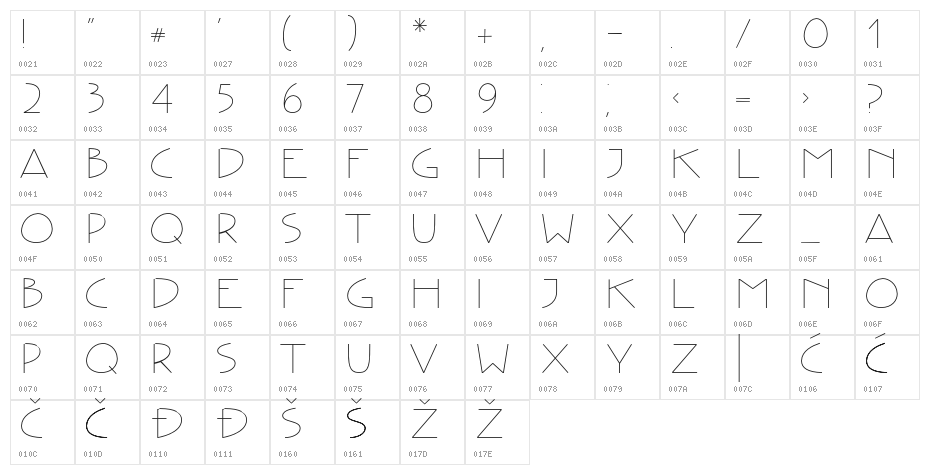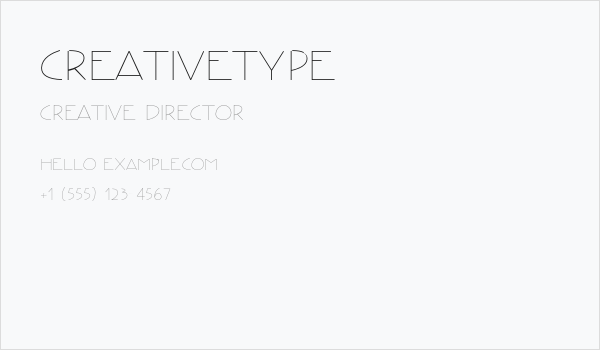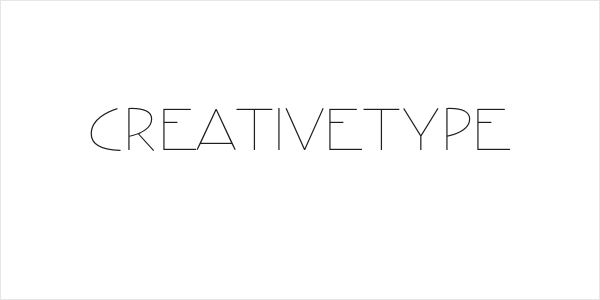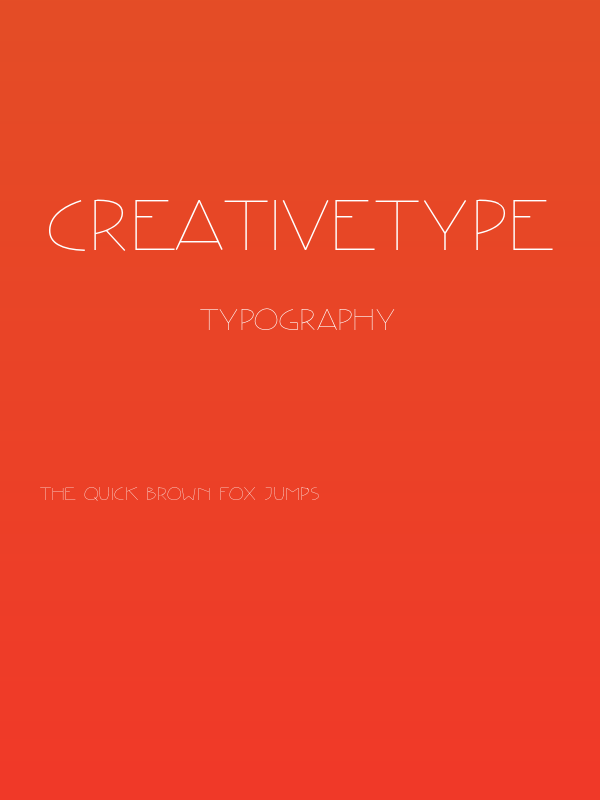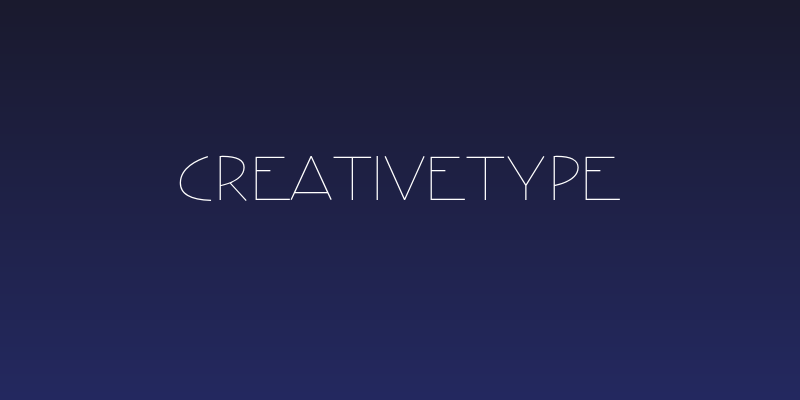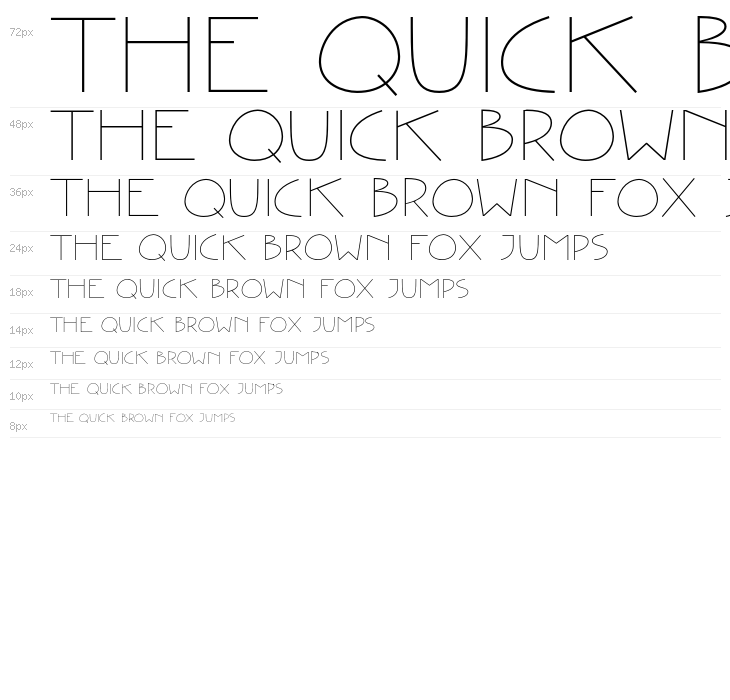
CreativeType Font
CreativeType Description
This font features a sleek and modern design with thin, elegant lines that create a sense of sophistication and minimalism. The characters are crafted with a geometric precision, offering a clean and airy appearance. The uppercase and lowercase letters maintain a consistent style, with sharp angles and smooth curves that enhance readability. The numerals are equally refined, matching the overall aesthetic with their streamlined form. Special characters are thoughtfully integrated, maintaining the font's cohesive look. This font is ideal for projects that require a contemporary and stylish touch.
| Proposed Projects | Ideal for branding, fashion magazines, luxury product packaging, and modern web design. |